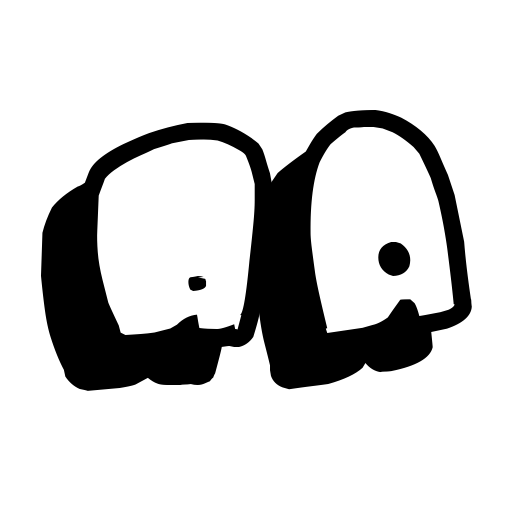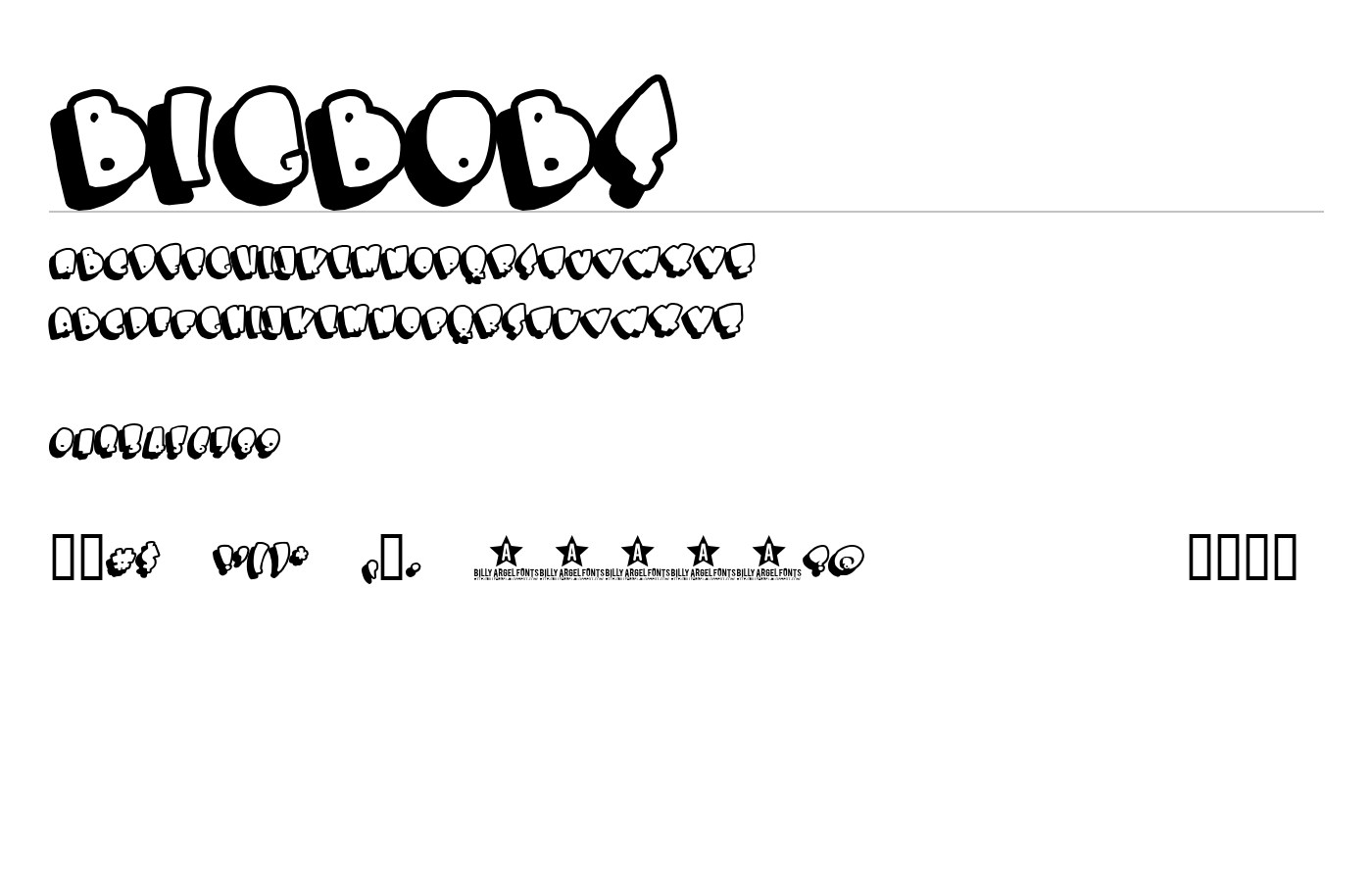
BIGBOBS is a playful, bold display font with chunky, rounded letterforms that create a fun and cartoonish vibe. Its heavy weight and irregular shapes with thick shadows make it ideal for eye-catching headlines, logos, or designs aimed at children and informal, lighthearted brands. This font works best in vibrant, casual contexts where a strong, whimsical personality is needed.
BIGBOBS Font
About BIGBOBS Font